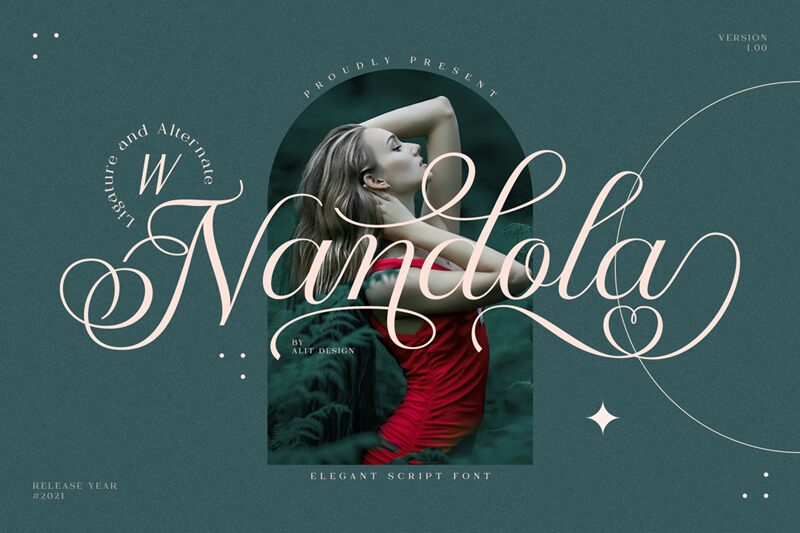
Nandola Regular
Introducing Nandola, a light calligraphy font beautifully crafted by Kana Widana. Perfect for adding an elegant touch to wedding invitations, quotes, logos and other creative projects.